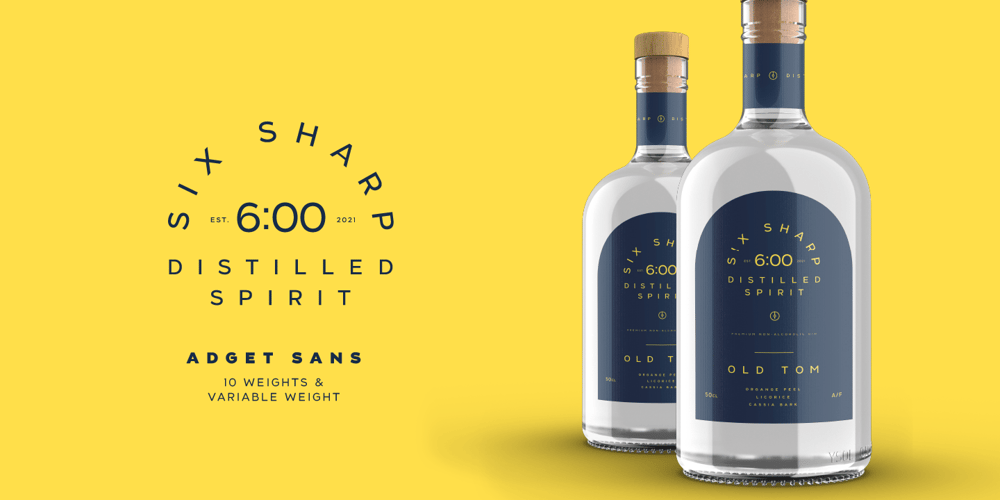
Adget Sans Font Family was designed by Adam Greasley and published by wearecolt. Adget Sans contains 11 styles and family package options. Adget Sans is a modern, strong statement typeface with clean lines and big curves. Inspired by classic geometric grotesque typefaces, this sans serif typeface is perfect for adding a striking title to your portfolio or website.This set includes ten individual weight fonts plus a variable weight font, Adget Sans consists of 328 glyphs across upper and lowercase, numerals, all European characters, linked letters and ligatures plus some bouns stylistic alternative characters.